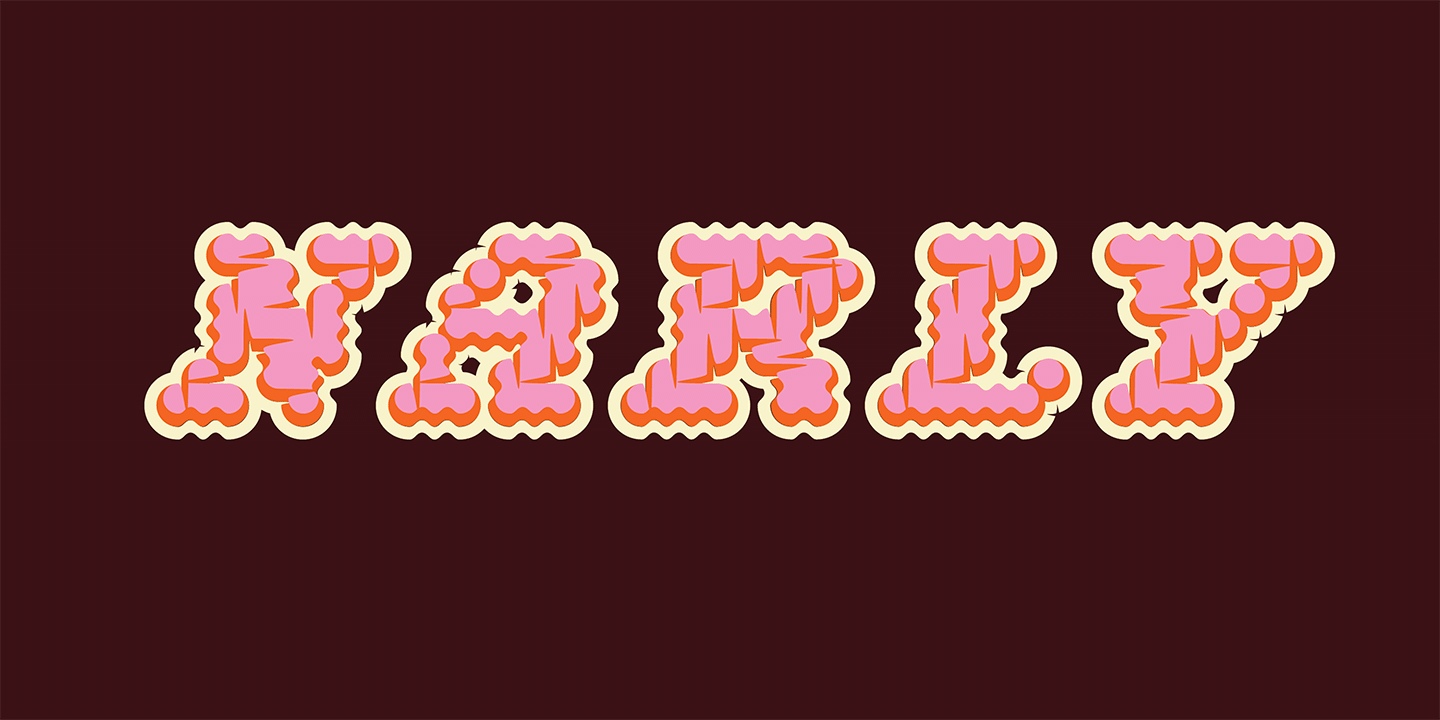
Narly Font
Narly Font is perfect for various design applications including surf brand logos, skateboard graphics, beach resort signage, extreme sports merchandise, youth-oriented campaigns, music festival posters, casual apparel designs, action sports magazines, alternative lifestyle branding, and counter-culture communications. This dynamic typeface excels in projects requiring rebellious energy and laid-back California vibes that resonate with adventurous spirits.
What makes Narly Font so exciting is its perfect capture of surf culture's carefree attitude and rebellious spirit through bold, organic letterforms. The font features flowing curves reminiscent of ocean waves, distressed textures that evoke weathered surfboards, and dynamic character variations that mirror the unpredictable nature of extreme sports. Its distinctive style instantly communicates adventure, freedom, and authentic street credibility, making it the ideal choice for brands targeting young, active audiences who live for thrills and authentic experiences.
The Narly Font family includes multiple weights from light to extra bold, along with distressed and clean variations that provide flexibility for different brand personalities. Each style maintains the font's signature surf-inspired character while offering versatility for various applications. The family also features alternative letterforms, stylistic ligatures, and decorative elements that enhance the font's authentic street appeal and allow designers to create unique, customized looks.
Narly Font distinguishes itself through its genuine representation of surf and skate culture aesthetics without feeling forced or artificial. Its carefully crafted irregularities and organic flow patterns ensure that designs feel authentically connected to beach and street culture. From bold headers to detailed merchandise graphics, this font provides designers with tools to create communications that resonate with audiences seeking genuine, uncompromising expressions of alternative lifestyle values.